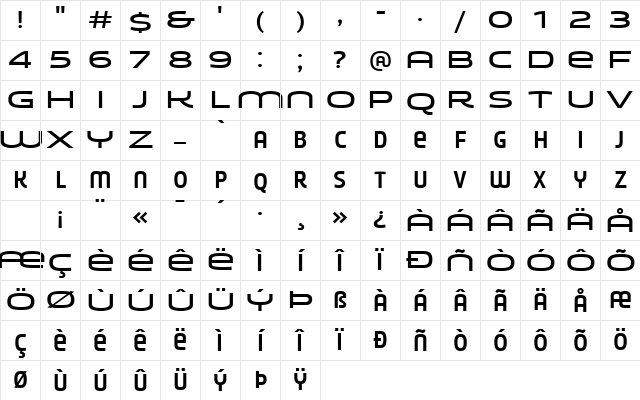
YounionOne FY Regular
Foundry: FONTYOU
Designer: FONTYOU
Design Context for YounionOne FY
YounionOne FY is a composed and adaptable typeface that performs quietly and consistently across a wide range of design contexts.